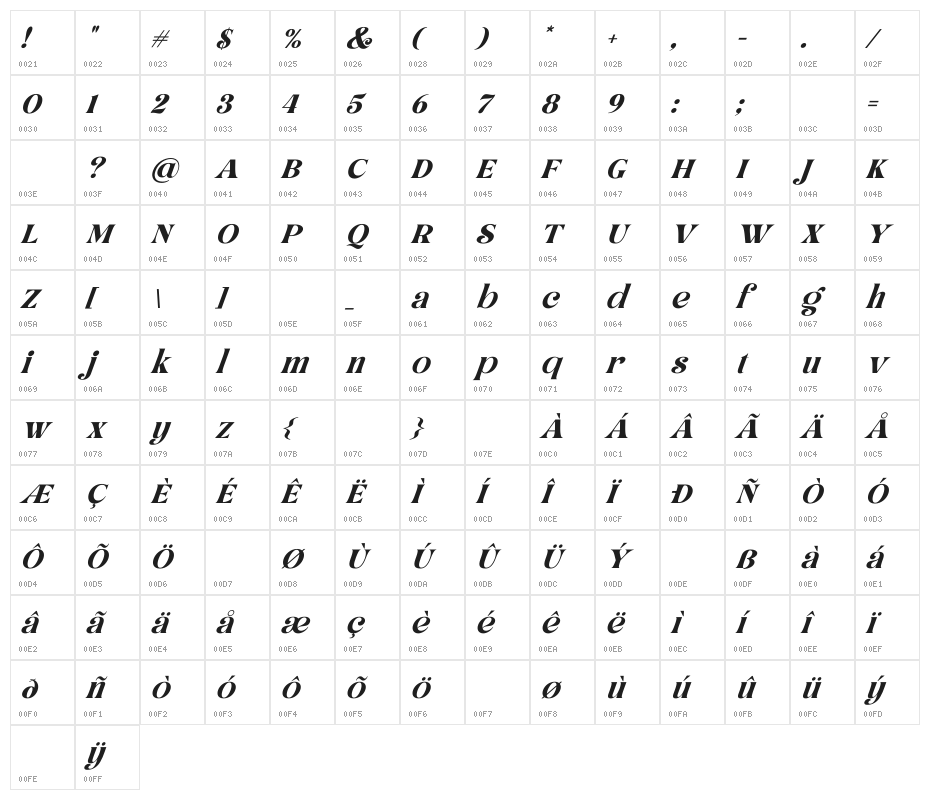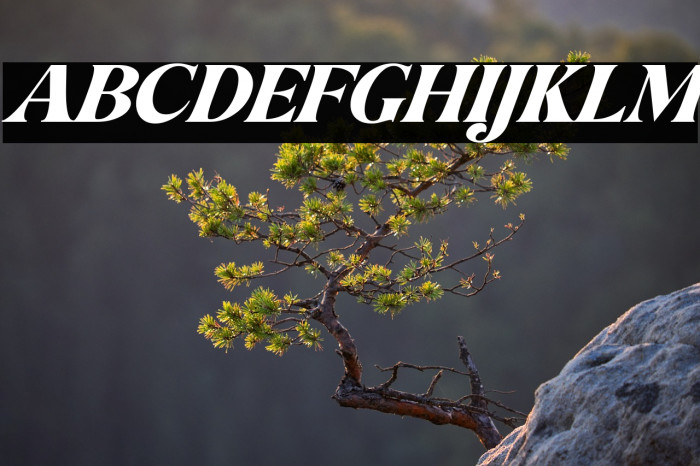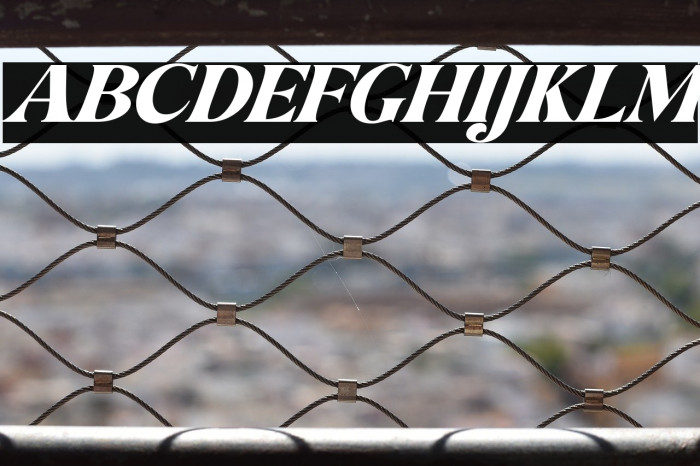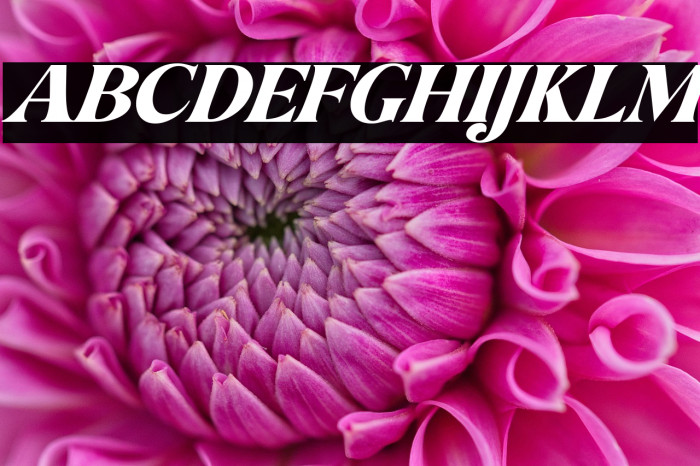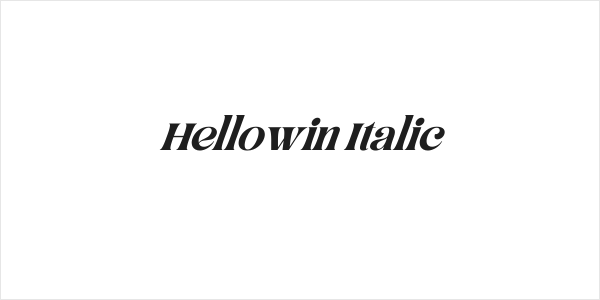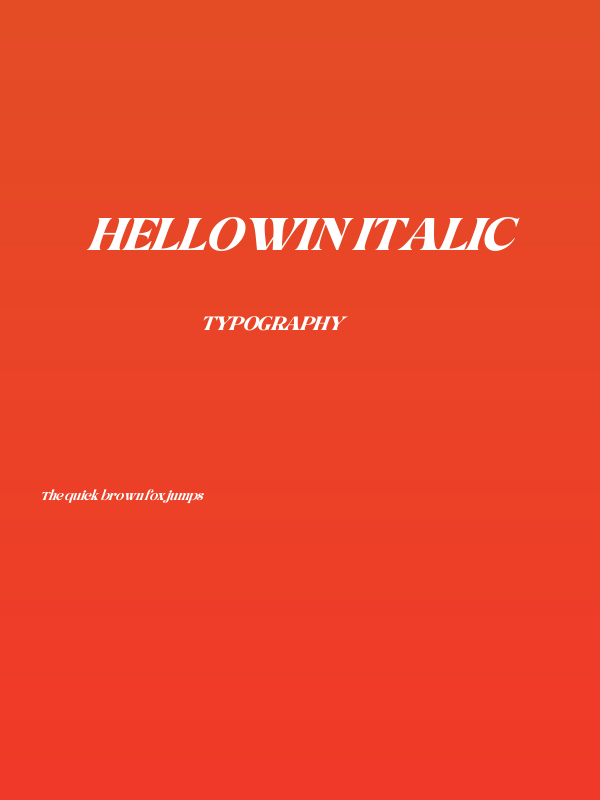
Hellowin Italic Font
Hellowin Italic Description
This font exhibits a bold and dynamic style with a pronounced italic slant, giving it a sense of motion and elegance. The characters are well-defined with thick strokes, enhancing their visibility and impact. The uppercase letters are particularly striking, with sharp serifs and a slight curvature that adds a touch of sophistication. The lowercase letters maintain the same boldness, with smooth transitions and consistent weight throughout. Numbers and special characters are equally bold and cohesive, ensuring uniformity across all elements. This font's strong presence makes it ideal for attention-grabbing designs.
| Proposed Projects | Ideal for branding, headlines, posters, and any design requiring a strong, elegant presence. |